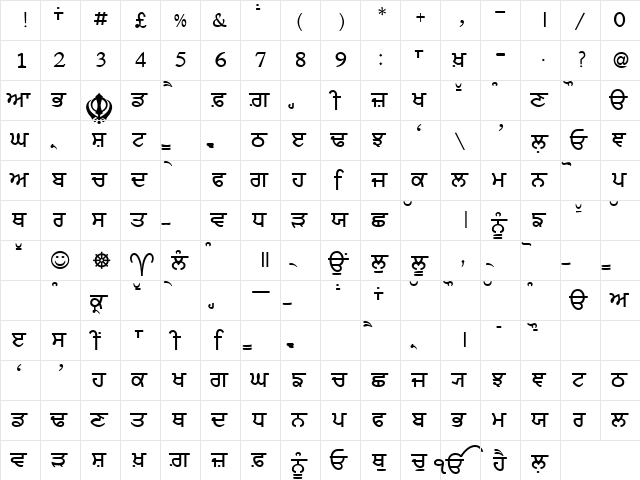
RUBYSARP Normal Font Preview
RUBYSARP Normal
RUBYSARP Normal Font Details
Design Context for RUBYSARP Typeface
RUBYSARP offers clean, dependable letterforms without strong stylistic allegiance, making it a practical choice for designers who need flexibility.